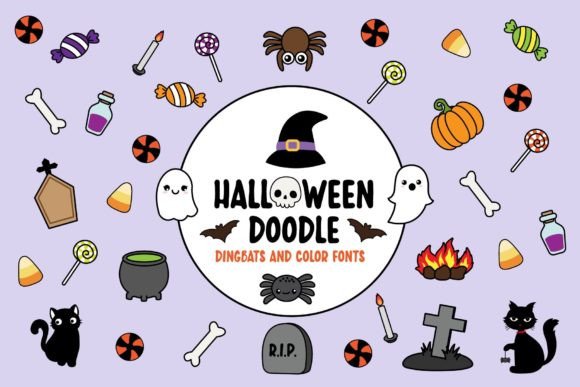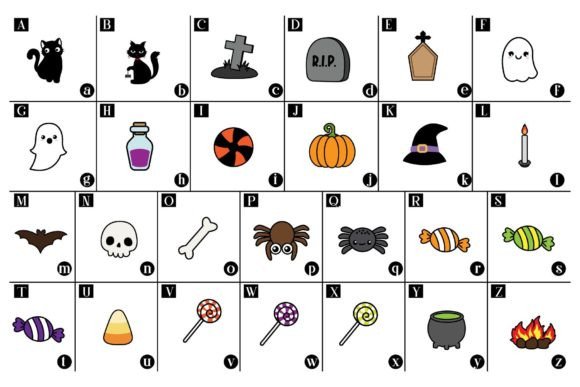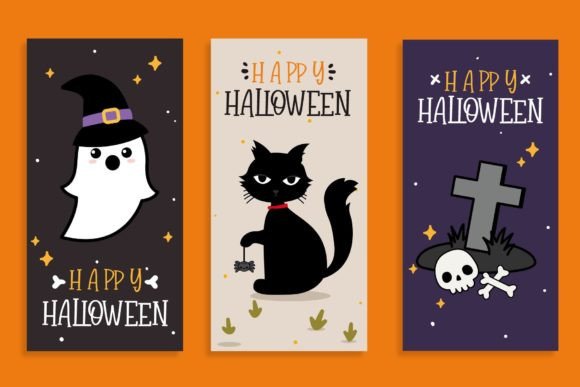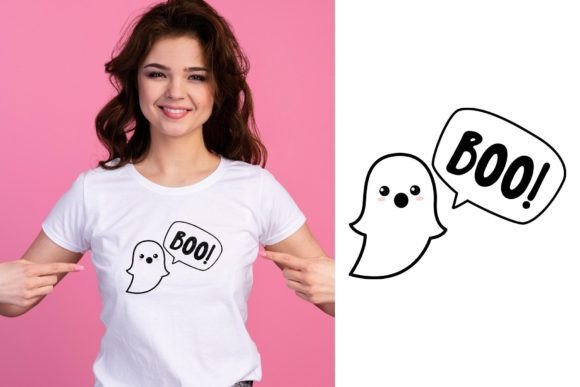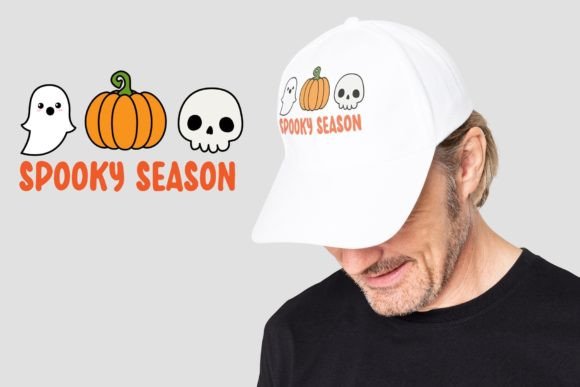
Halloween Doodle Font
About Halloween Doodle Font
Introducing Halloween Doodle, a charming and colorful Dingbats font designed specifically for Halloween-themed projects. With its cute and playful design, this font is perfect for creating invitations, social media posts, and greeting cards that capture the spirit of Halloween.
Featuring a variety of Halloween-themed doodles, Halloween Doodle font adds a delightful touch to your creative projects. The colorful glyphs include cute pumpkins, spooky ghosts, wicked witches, bats, and other iconic symbols associated with Halloween. Whether you’re planning a Halloween party, designing promotional materials, or simply expressing your love for the holiday, this font is sure to make your designs stand out.